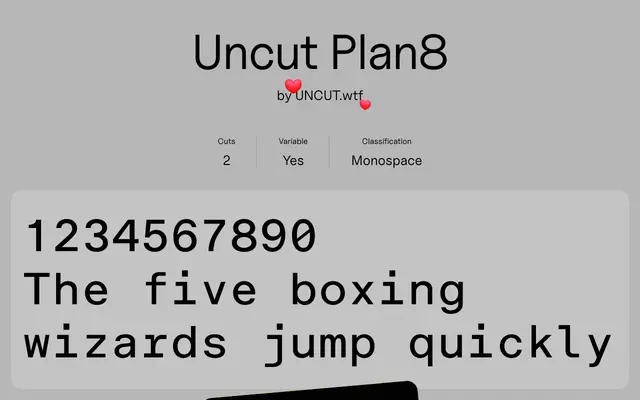
Uncut Plan8
A free, open-licence monospace with two cuts including a variable font, released by Uncut for both commercial and personal use.
A monospaced typeface from Uncut offered under the SIL Open Font License, making it freely available for commercial and personal projects. It comes in two cuts, one of which is a variable font, allowing for flexible weight or axis control within a single file. Little additional detail is provided about its design origins or intended use cases beyond its classification.
Explicitly classified as Monospace by the foundry, with a variable font cut indicating a contemporary technical monospaced design.